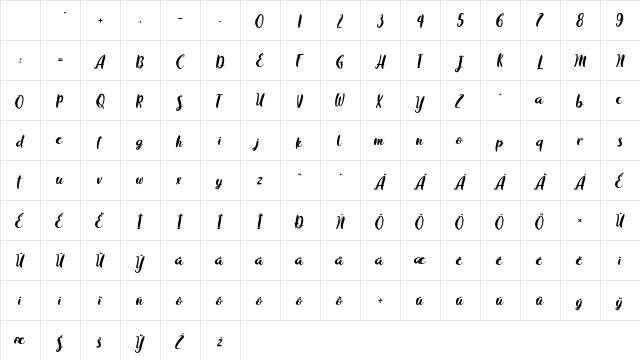
Complete Chocolate Flavor Regular glyph index. Displaying only characters natively supported by Chocolate Flavor Regular font.
Chocolate Flavor is a composed and adaptable typeface that performs quietly and consistently across a wide range of design contexts.